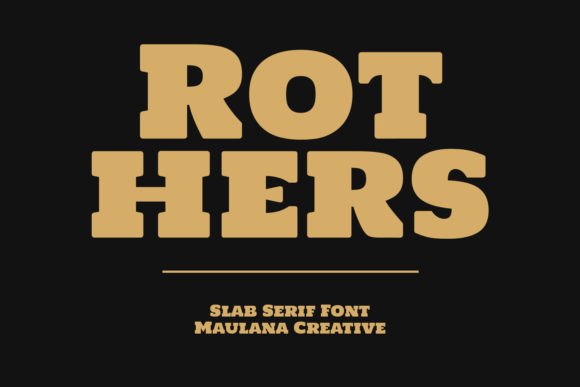
Step into a world of elegance and sophistication with Rothers Font, the ultimate choice for your creative endeavors. This striking slab-serif font captivates with its bold strokes, sharp angles, and open counters, creating a look of modern luxury that will make your designs shine.
Unleash your creativity with Rothers Font, the perfect companion for creating eye-catching logos, posters, branding materials, headlines, and more. Its thick, heavy strokes convey strength and stability, while its sharp, angular edges add a touch of dynamism and energy to your designs. The wide letterforms and open counters ensure excellent readability, even in small sizes, making Rothers Font ideal for both print and digital projects.
Transport your audience to a world of luxury and sophistication with Rothers Font. Its timeless design evokes a sense of exclusivity and elegance, elevating your projects to new heights. Whether you're a seasoned designer or just starting out, Rothers Font is the perfect choice to add a touch of class and sophistication to your work.
Don't settle for ordinary fonts. Embrace the power and beauty of Rothers Font today and let your creativity soar. Experience the difference that a truly exceptional font can make in your designs and leave a lasting impression on your audience.